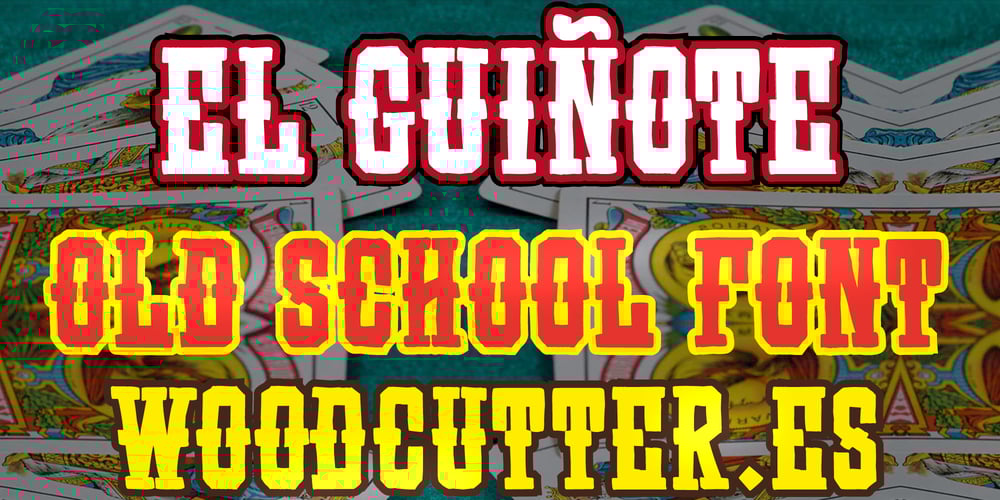
El Guinote
El Guinote font
El Guinote Font Family was designed by Jordi Manero and published by Woodcutter. El Guinote contains 1 styles and family package options. “El Guiñote” is a vintage typeface that captures the essence of a slightly western style. Comprised of uppercase letters and accents, its robust and nostalgic design makes it ideal for projects aiming to evoke a sense of the old frontier. Perfect for posters, signage, and bold titles, “El Guiñote” brings a classic and daring touch to any design. Its rustic and detailed appearance offers an authenticity that stands out in any context, reminiscent of the old west’s typographies.–Uppercase